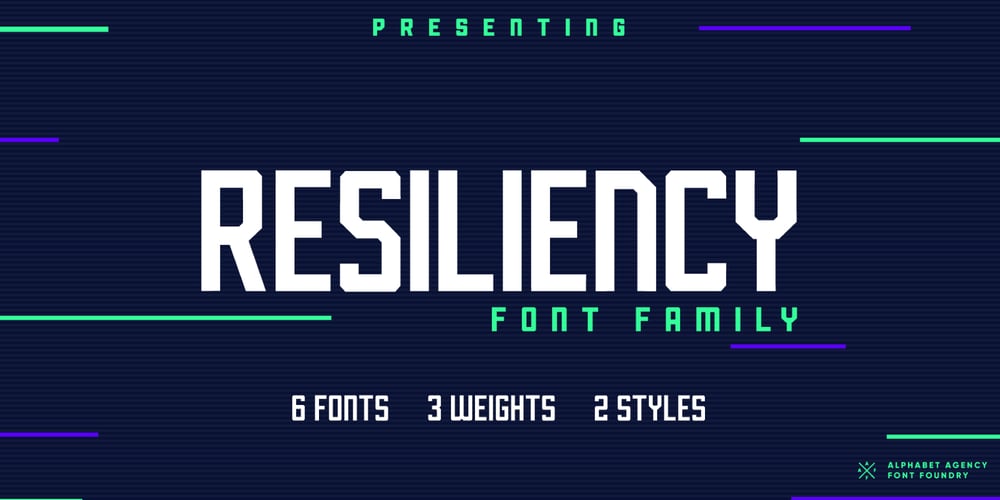
Resiliency
Resiliency font
Resiliency Font Family was designed by Swinn Jonathan and published by Alphabet Agency. Resiliency contains 6 styles and family package options. Resiliency font family offers 6 font; 3 weight in regular and italic that provides a variety of looks and possible combinations.Resiliency offers great looks on esports themed designs and other sports in general.